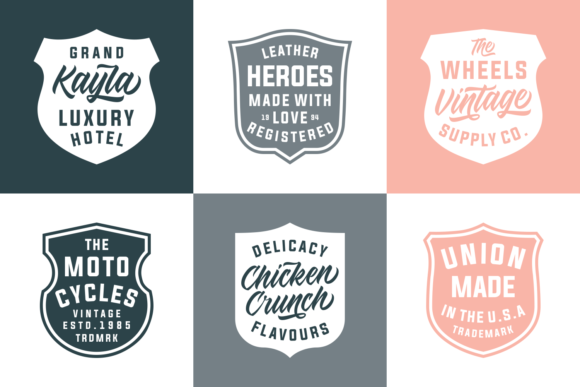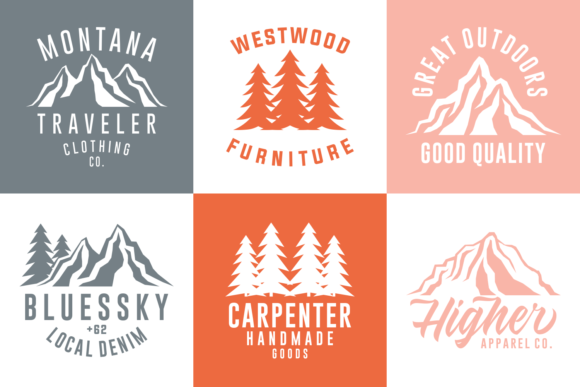
About Retrorizo Font
Retrorizo is indeed a remarkable dingbats font that combines elements from nature and badges to create a distinctive and captivating look. With its unique charm and retro-inspired design, Retrorizo can add a touch of nostalgia and creativity to your design creations. Here are a few ways you can make the most of this font:
1. Vintage Logos: Utilize the nature-inspired elements and badges from Retrorizo to create vintage-style logos. The font’s retro aesthetic combined with its unique elements can help you craft logos with a distinct and memorable appeal.
2. Badges and Labels: The badges included in Retrorizo can be used to create eye-catching labels, tags, or badges for packaging, branding, or promotional materials. Whether it’s for products, events, or special occasions, these badges can add a touch of retro elegance to your designs.
3. Nature-inspired Patterns: Combine the nature elements from Retrorizo to create patterns and backgrounds. The unique shapes and motifs can be arranged in various ways to form visually appealing patterns that can be used in stationery, textiles, website backgrounds, and more.
4. Vintage Posters and Flyers: Channel the retro vibe of Retrorizo into your poster and flyer designs. Use the font’s elements to create eye-catching compositions, borders, or illustrations that capture the essence of vintage design.
5. Social Media Graphics: Enhance your social media presence by incorporating elements from Retrorizo into your graphics. Create visually appealing posts, cover photos, or banners that reflect a nostalgic and nature-inspired aesthetic.
6. Branding and Identity: Whether you’re designing a brand identity for a business or personal project, Retrorizo can bring a unique spark to your designs. Combine the font’s elements with complementary typography and color schemes to create a cohesive and memorable visual identity.
Remember to experiment with different combinations, sizes, and color palettes to make the most of the unique elements in Retrorizo. Let its nature-inspired and badge elements inspire your creativity and elevate your design creations to new heights!